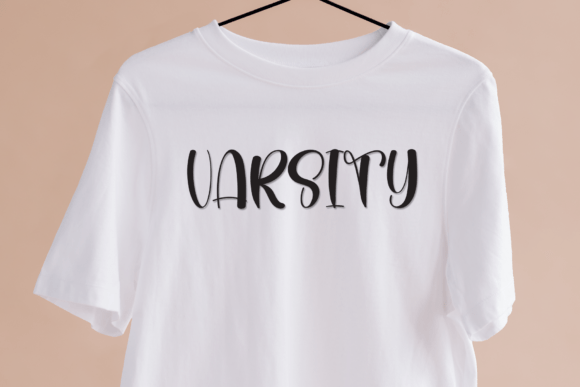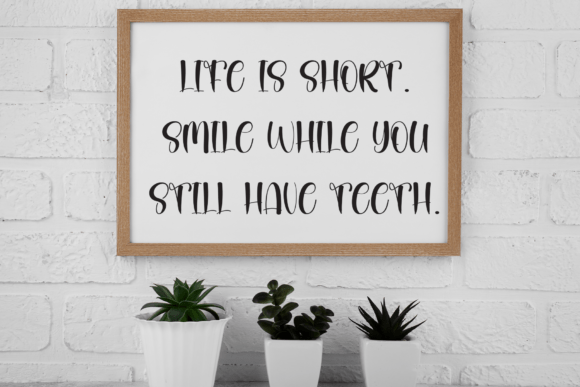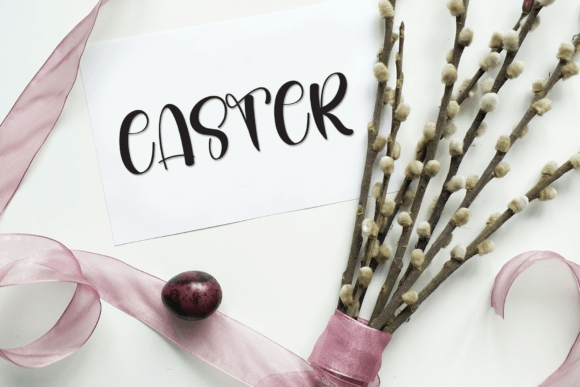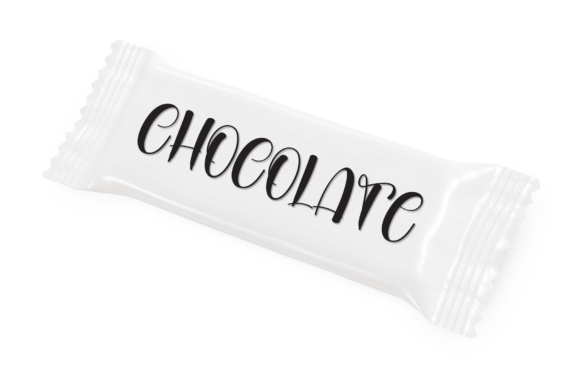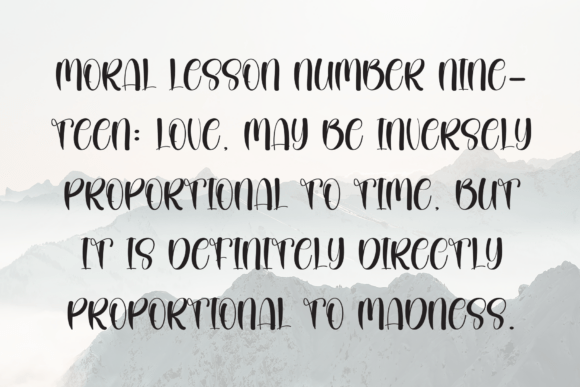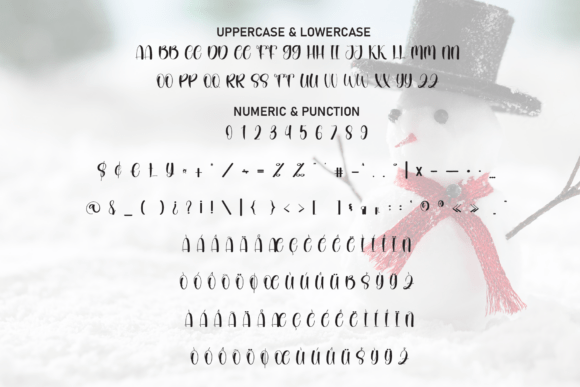
Introduction to Single Snowman Font
Immerse yourself in the charming allure of our captivating handwritten display font, delicately balanced with an inviting mix of elegance and warmth.
This graceful typeface, embellished with visually appealing characteristics and a vibrant atmosphere, is an excellent choice for imparting a sentimental essence to wedding invitations or whimsical cards Experience a journey into uncharted territories of creativity with this jubilant font, amplifying a personal and vivid flair to your artistic designs.